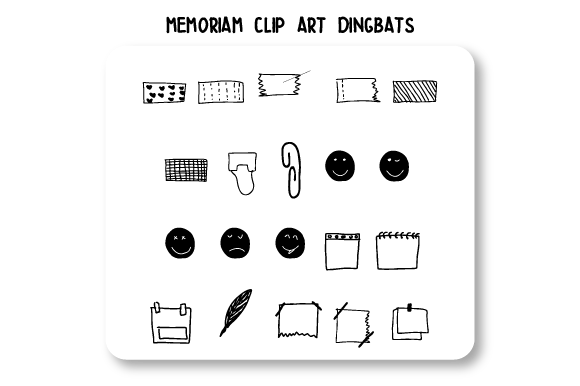
Memoriam Clip Art Font
About Memoriam Clip Art Font
Memoriam Clip Art is indeed a valuable and unique dingbats font that can enhance your designs. Here are some reasons why Memoriam Clip Art is a great addition to your font library:
1. Versatile Clip Art: Memoriam Clip Art provides a wide range of unique and appealing clip art designs. These designs can be used as decorative elements, borders, dividers, or frames in your designs. Whether you’re creating invitations, posters, digital graphics, or any other project, the clip art from Memoriam Clip Art can add visual interest and enhance your overall composition.
2. Time-saving Convenience: Instead of searching for individual clip art images or creating them from scratch, Memoriam Clip Art provides a ready-to-use collection of designs. Simply select the desired character from the font and place it in your design. This saves you time and effort, allowing you to focus on other aspects of your creative process.
3. Unique and Appealing Style: Memoriam Clip Art has a unique and appealing style that sets it apart from standard clip art collections. The designs are carefully crafted, featuring intricate details and creative compositions. This attention to detail adds a touch of sophistication and elegance to your designs.
5. Enhances Creativity: By having a diverse collection of clip art designs in Memoriam Clip Art, you have a wealth of creative possibilities at your fingertips. You can mix and match different elements, combine them with other fonts or graphics, and create unique compositions that align with your vision. The clip art from Memoriam Clip Art serves as a source of inspiration and sparks creativity in your design process.
6. Professional and Polished Look: The high-quality designs in Memoriam Clip Art lend a professional and polished look to your designs. The attention to detail and unique style elevate your projects, making them stand out and leaving a lasting impression on viewers.
Incorporating Memoriam Clip Art into your design projects can breathe new life into your compositions. Its versatile clip art, time-saving convenience, unique style, and ability to enhance creativity make it a valuable asset. So, embrace the appeal and uniqueness of Memoriam Clip Art and let it bring your designs to life with its captivating clip art designs.